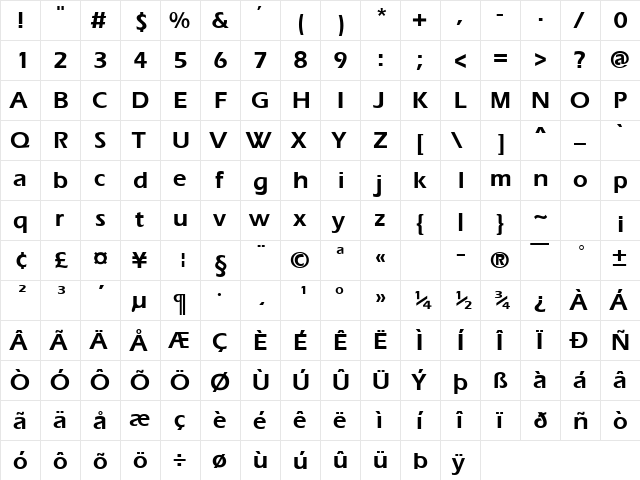
GE Ergonomic Bold
Design Context for GE Ergonomic Typeface
GE Ergonomic offers clean, dependable letterforms without strong stylistic allegiance, making it a practical choice for designers who need flexibility. The heavy weight commands attention and anchors typographic hierarchies.